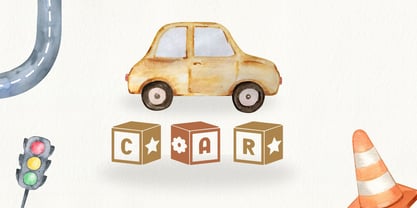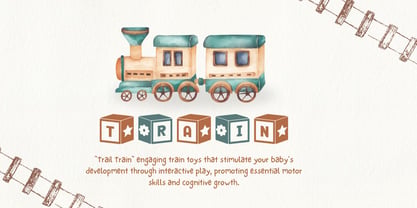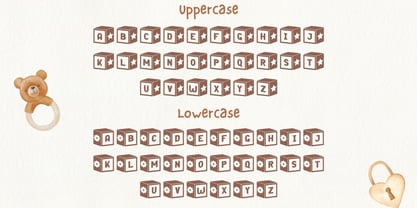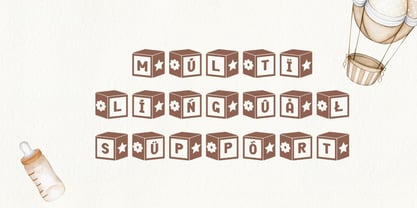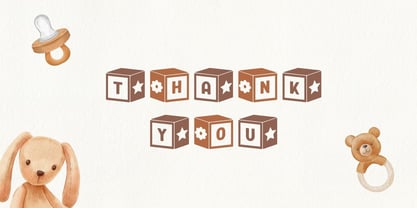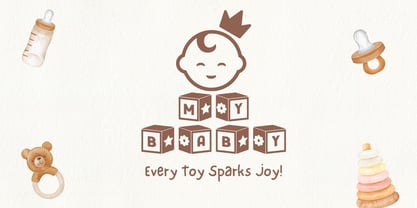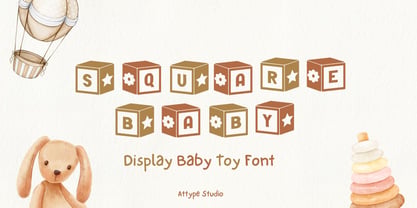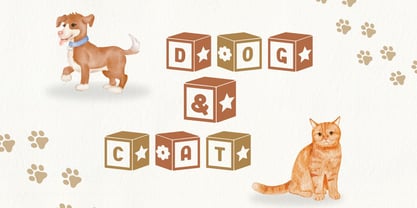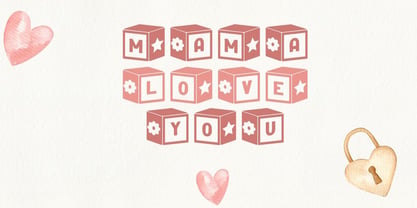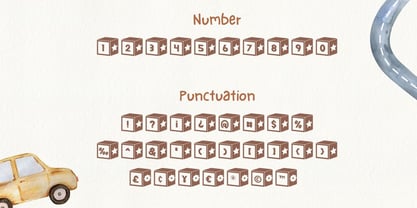
Square Baby
The Square Baby Font Family was designed by Fadli Ramadhan Iskandar and published by Attype Studio. Square Baby contains 1 styles. More about this family
Square Baby - Display Font
Let your creativity build a world of fun with Square Baby, a delightful display font inspired by children's alphabet blocks!
With a chunky, friendly design and playful details, Perfect for children's books, toy packaging, educational materials, and playful branding, Square Baby adds a whimsical touch that makes words feel like building blocks of imagination.
- Multilingual, US Roman, Latin 1 Support